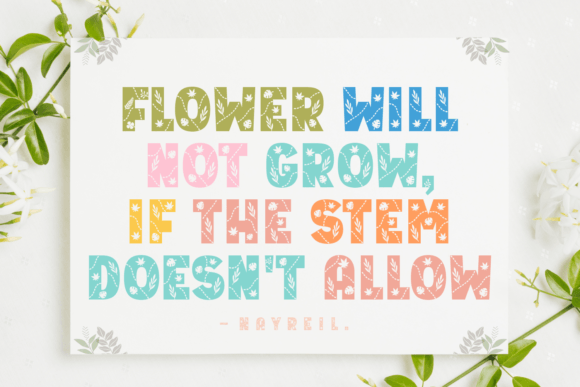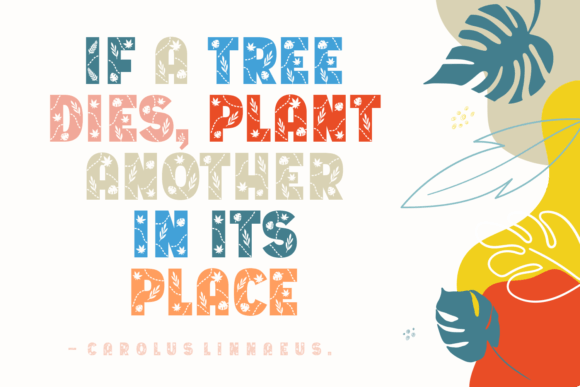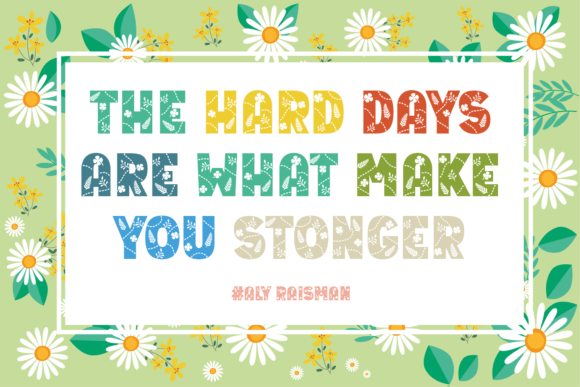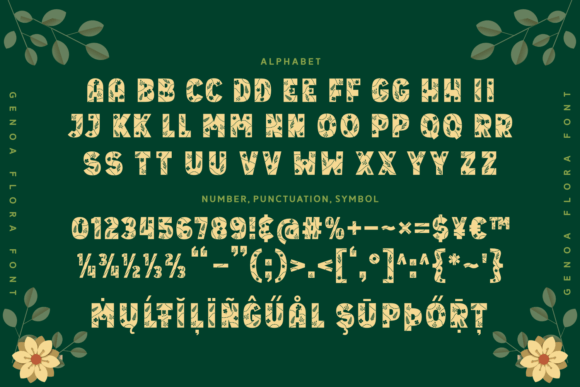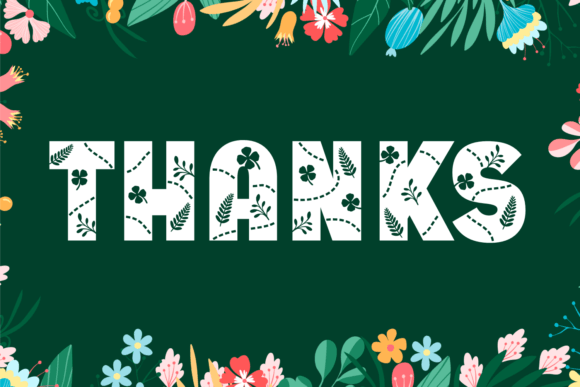
Genoa Flora Font: Elevate Your Design with a Touch of Nature
In the world of typography, fonts play a crucial role in conveying the tone and aesthetic of a design project. For designers and crafters looking to add a touch of elegance and sophistication to their work, the Genoa Flora font is an excellent choice. This fresh and contemporary decorative font is adorned with delicate foliage nestled within each character, making it perfect for invitations, branding, and any design project in need of a stylish, botanical touch.
What is Genoa Flora Font?
Genoa Flora is a modern decorative font that seamlessly blends clean lines with a natural, organic aesthetic. The font features intricate illustrations of foliage and botanical elements, carefully crafted to add a touch of whimsy and charm to any design project. With its unique and eye-catching design, Genoa Flora is sure to make your work stand out from the crowd.
Key Features of Genoa Flora Font
- Delicate Foliage: Each character in the Genoa Flora font is adorned with delicate foliage, adding a touch of nature to your design project.
- Clean Lines: The font features clean lines and a modern aesthetic, making it perfect for a wide range of design applications.
- Contemporary Design: Genoa Flora boasts a fresh and contemporary design, ensuring your work looks modern and stylish.
- Botanical Touch: The font’s botanical elements add a touch of elegance and sophistication to any design project.
Uses of Genoa Flora Font
Genoa Flora is a versatile font that can be used in a variety of design projects, including:
- Invitations: Add a touch of elegance to your wedding invitations, birthday party invites, or any other special occasion.
- Branding: Use Genoa Flora to create a unique and memorable brand identity for your business or product.
- Stationery: Elevate your stationery design with the Genoa Flora font, perfect for creating stylish greeting cards, thank-you cards, and more.
- Packaging: Add a touch of sophistication to your product packaging with the Genoa Flora font.
Tips for Using Genoa Flora Font
To get the most out of the Genoa Flora font, follow these tips:
- Pair with Neutral Colors: Pair the font with neutral colors like white, beige, or gray to let the botanical elements take center stage.
- Experiment with Sizes: Experiment with different font sizes to create visual interest and hierarchy in your design.
- Add Texture: Add texture to your design by layering the font over a background image or texture.
In conclusion, the Genoa Flora font is a beautiful and versatile decorative font that can add a touch of nature and elegance to any design project. With its delicate foliage, clean lines, and modern aesthetic, this font is perfect for designers and crafters looking to create stylish and sophisticated designs. Whether you’re working on an invitation, branding project, or packaging design, Genoa Flora is sure to impress.